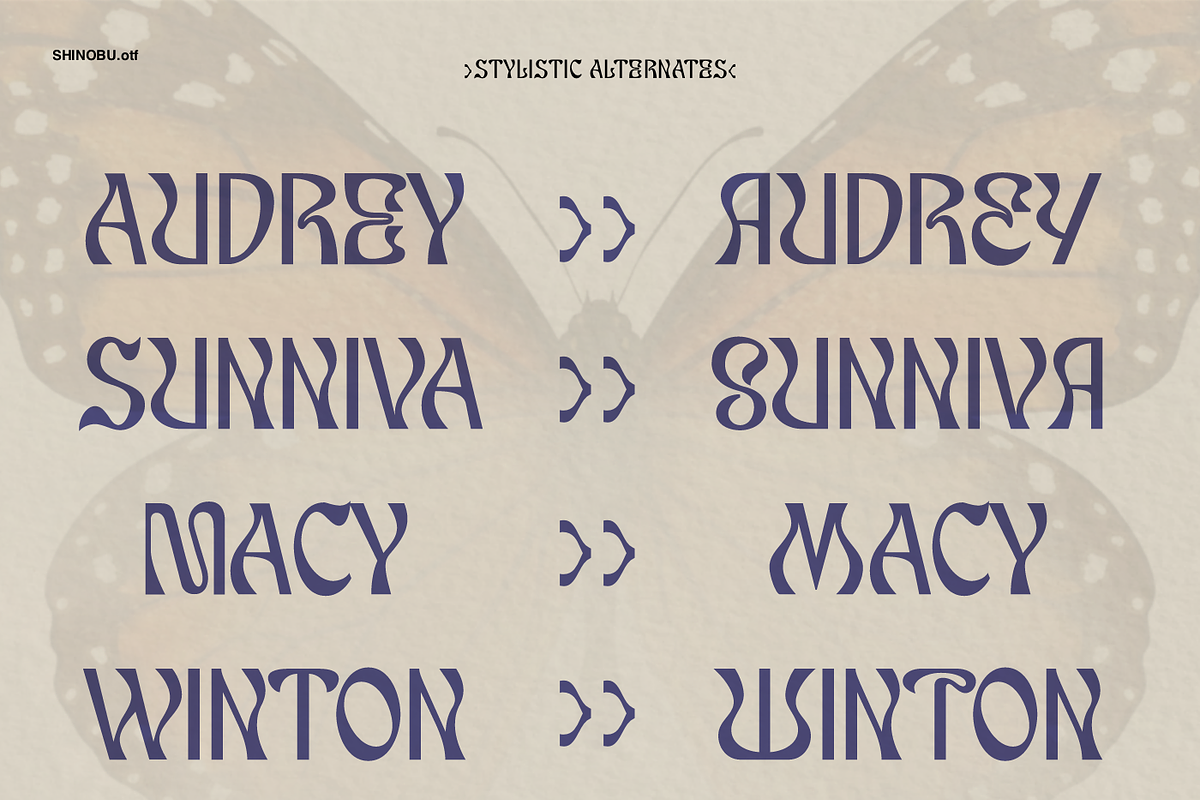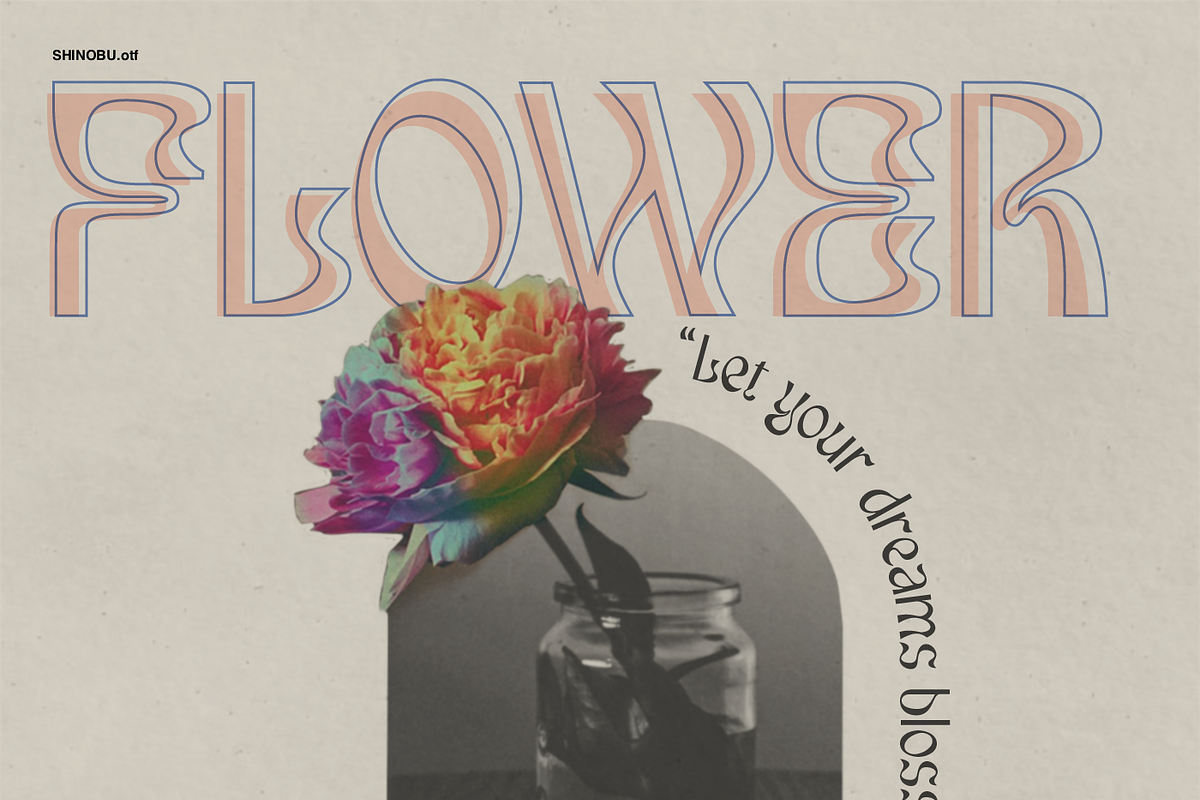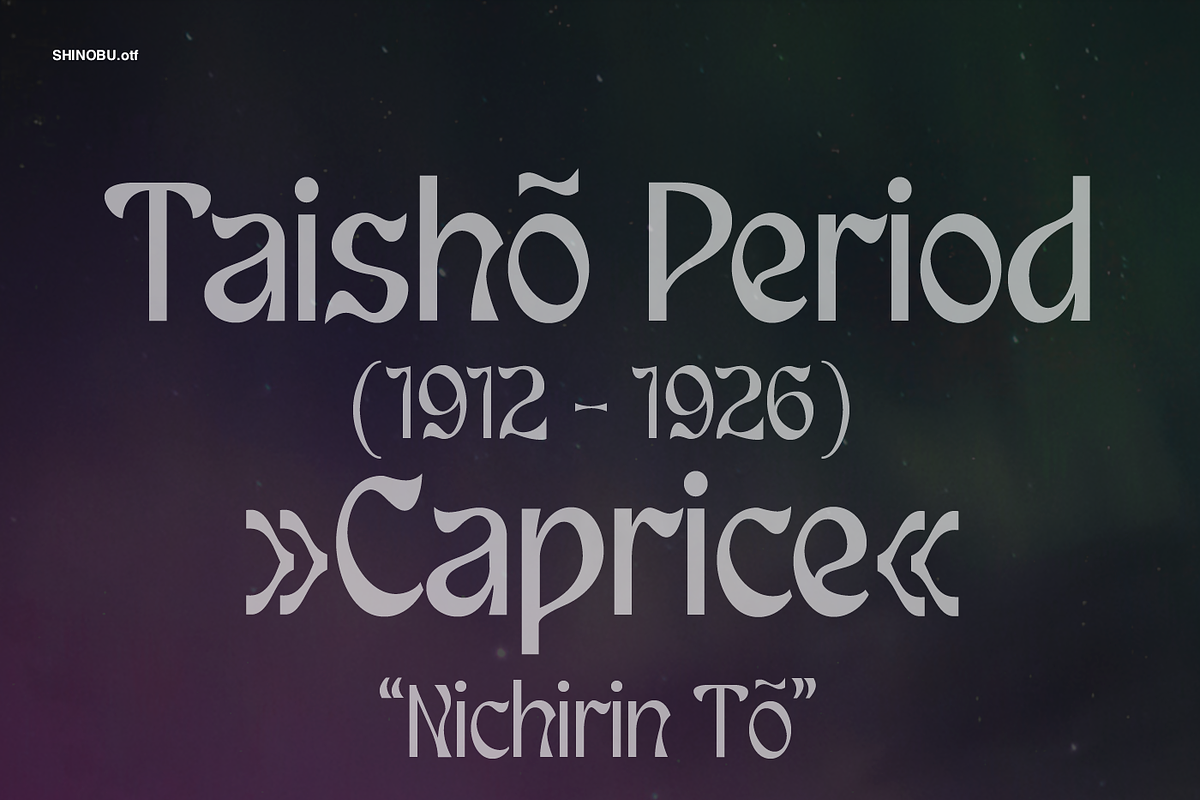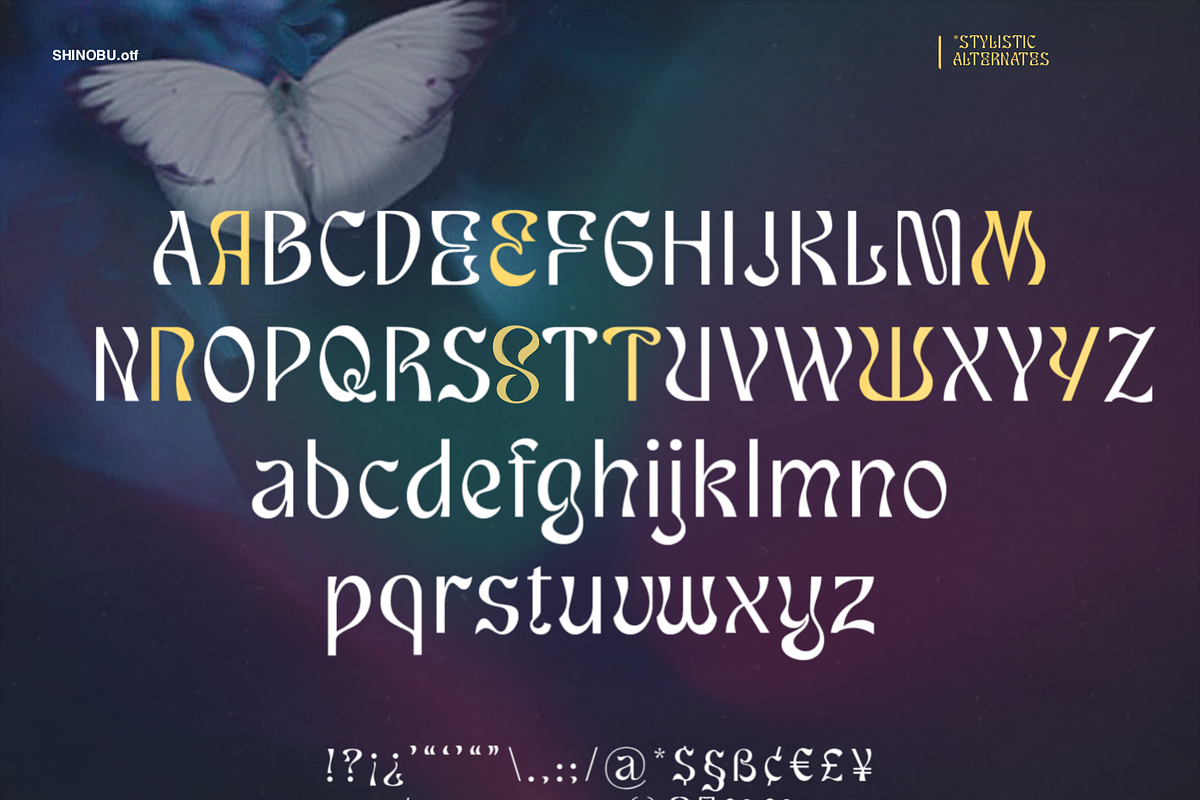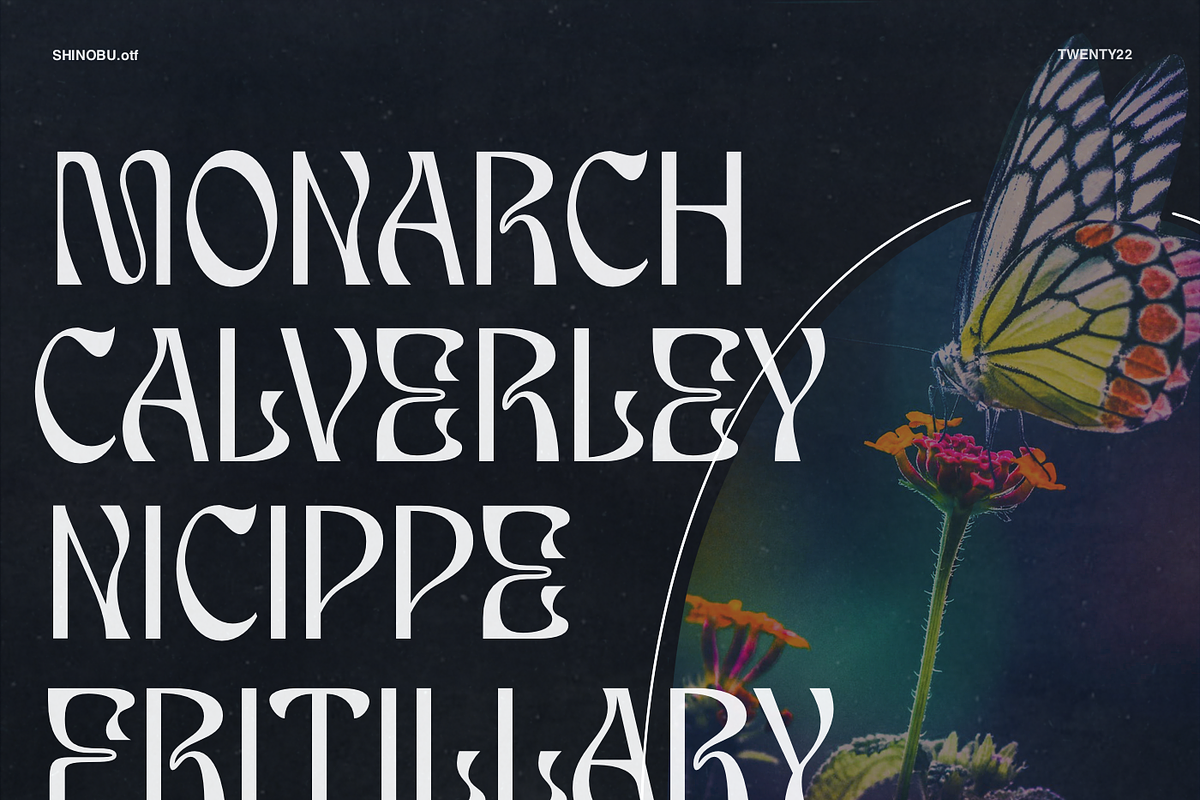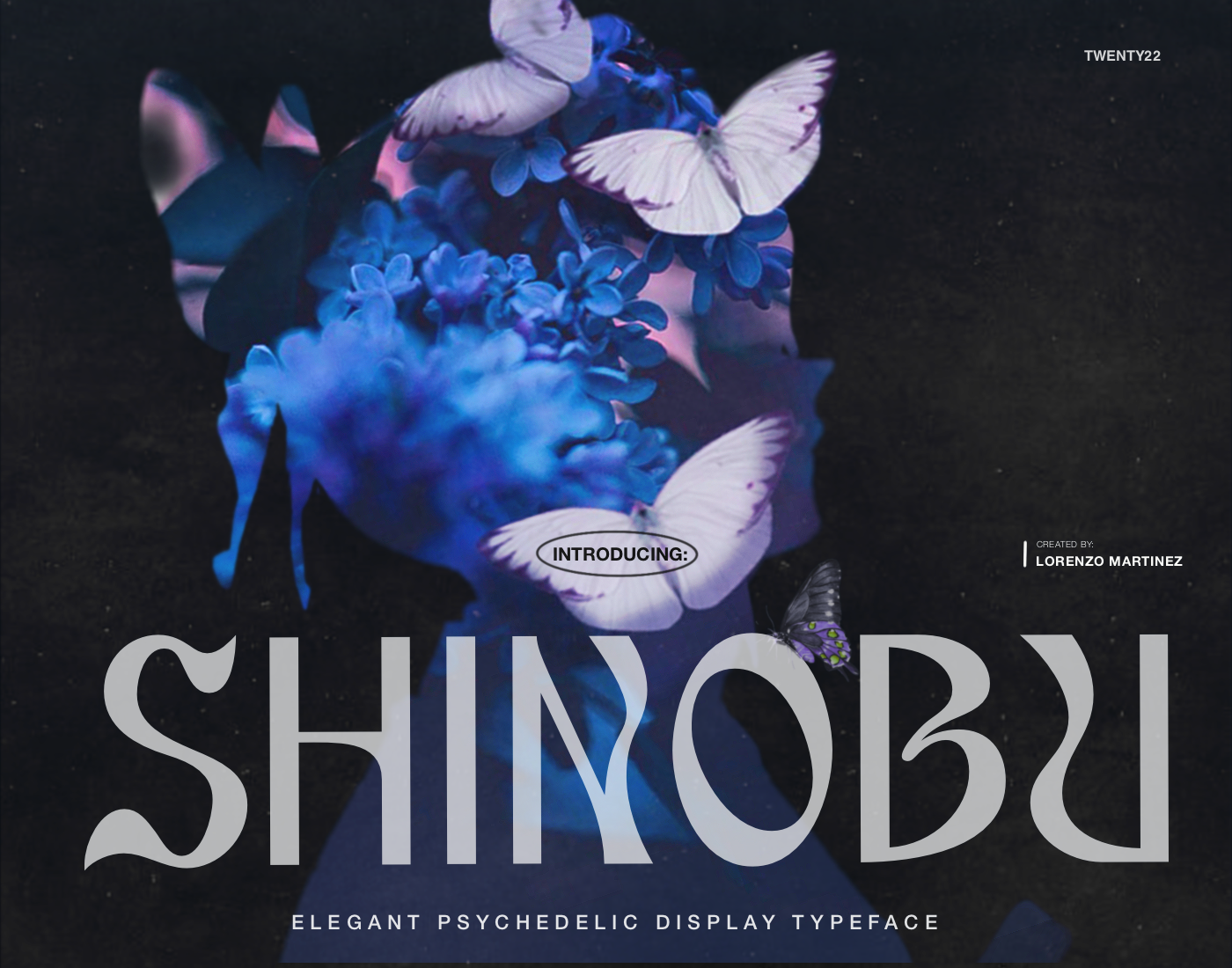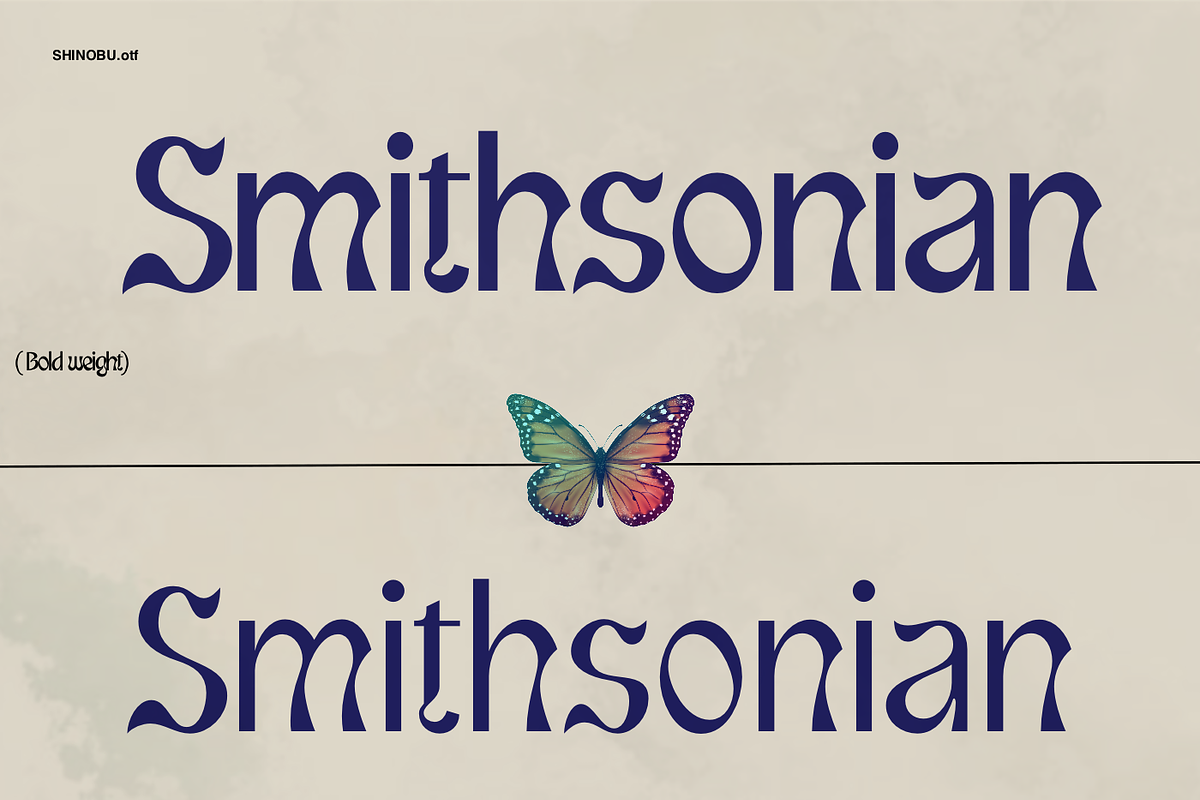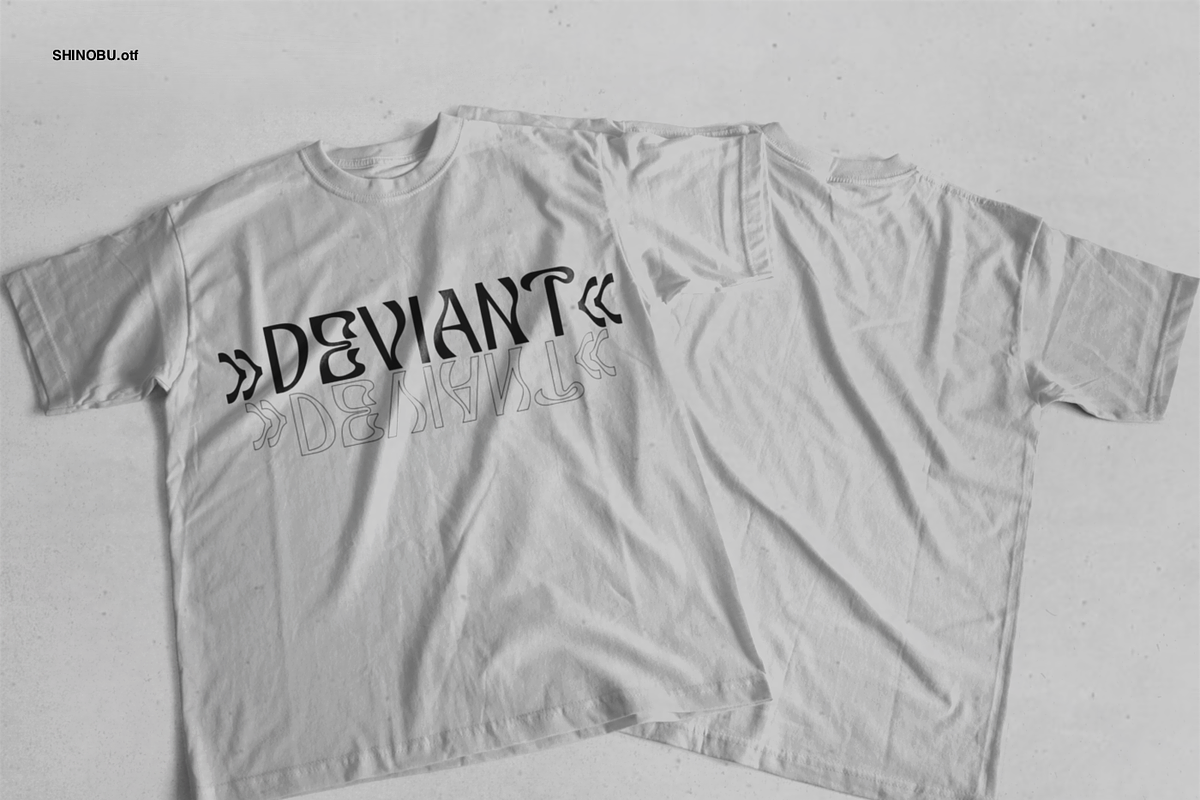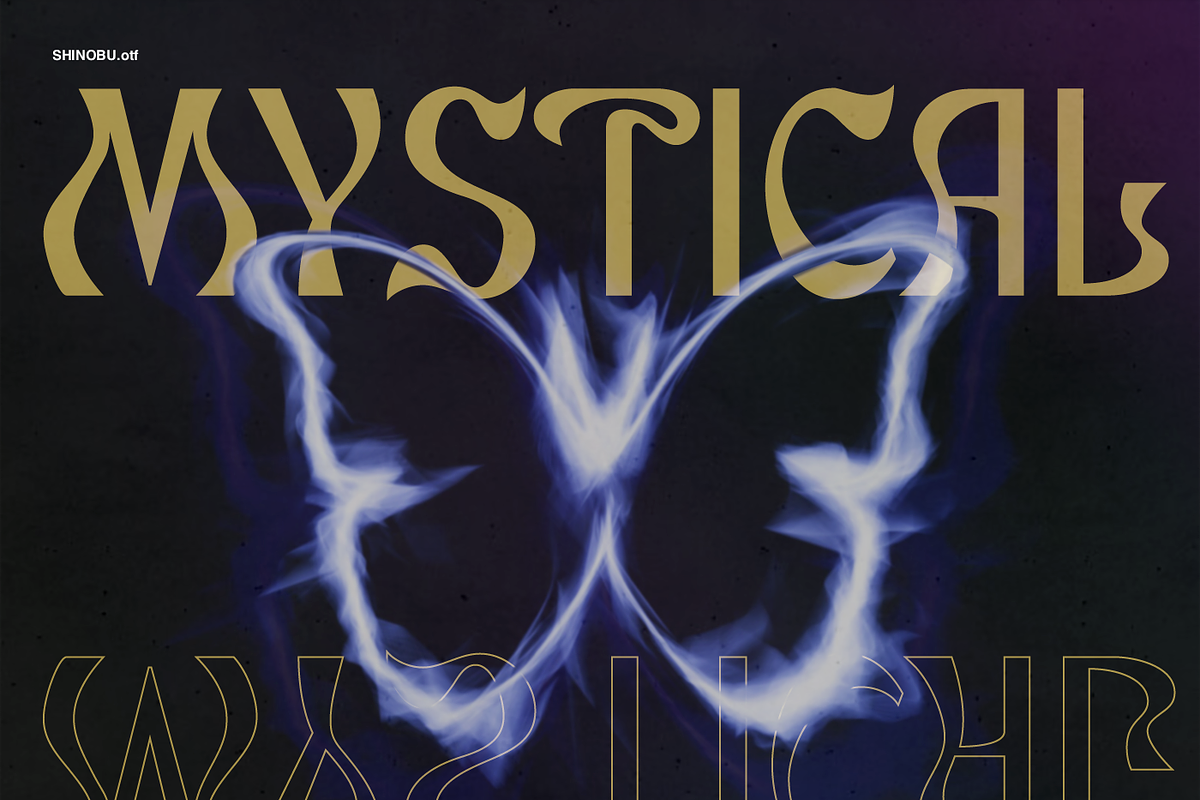
Shinobu - Elegant Psychedelic Font
Shinobu is a bold and elegant psychedelic display font that blends the flowing beauty of Art Nouveau with the clean sophistication of modern sans serif typefaces. Designed for visual impact, it’s perfect for creatives who want their designs to feel both artistic and contemporary.
Inspired by Shinobu Kocho, the graceful and quirky character from the hit anime Demon Slayer, this typeface embodies her unique blend of elegance, sophistication, and subtle eccentricity.
- Custom letterforms with psychedelic curves; basic Latin characters.
Whether you're designing for a band, a fashion brand, or a creative campaign, Shinobu will elevate your work with its stylish curves and artistic flair.O